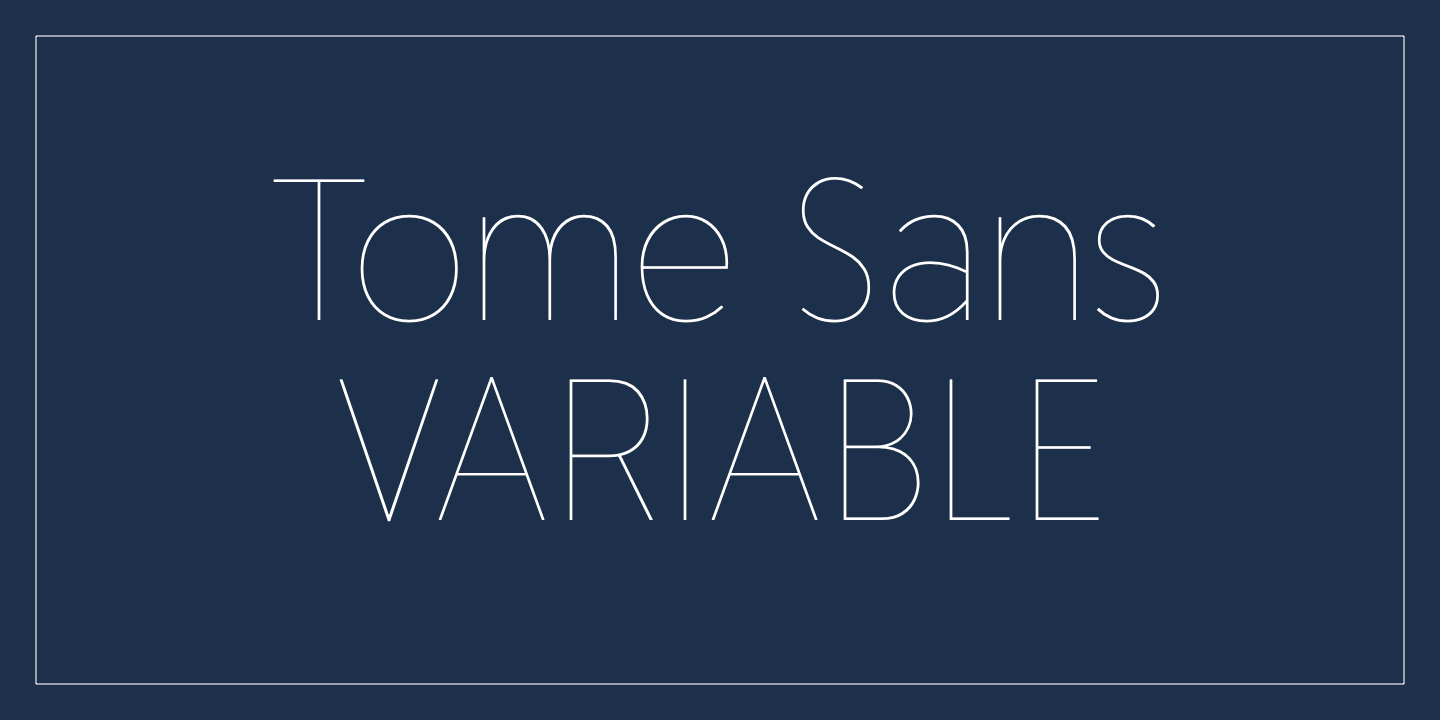
Tome Sans Variable Font Free Download is a modern, humanist sans-serif typeface that offers clarity, warmth, and adaptability—all in one highly flexible font. Designed with clean lines and soft curves, Tome Sans is perfect for editorial layouts, branding systems, user interfaces, and corporate communications where legibility and professionalism are key.
What sets this typeface apart is its variable functionality. With Tome Sans Variable Font Free Download, you can seamlessly adjust weight and width to fine-tune your typography across digital and print environments. Whether you need a light, airy touch for body text or a bold, commanding presence for headlines, Tome Sans can handle it all—without losing its character.
Tome Sans offers a thoughtful balance between geometric structure and humanist detail, giving it a friendly but precise feel. Its wide character set and excellent readability make it a solid choice for multilingual projects, accessibility-focused designs, and responsive digital products.
Tome Sans is more than just a workhorse—it’s a design companion that brings versatility, elegance, and a modern touch to every layout.